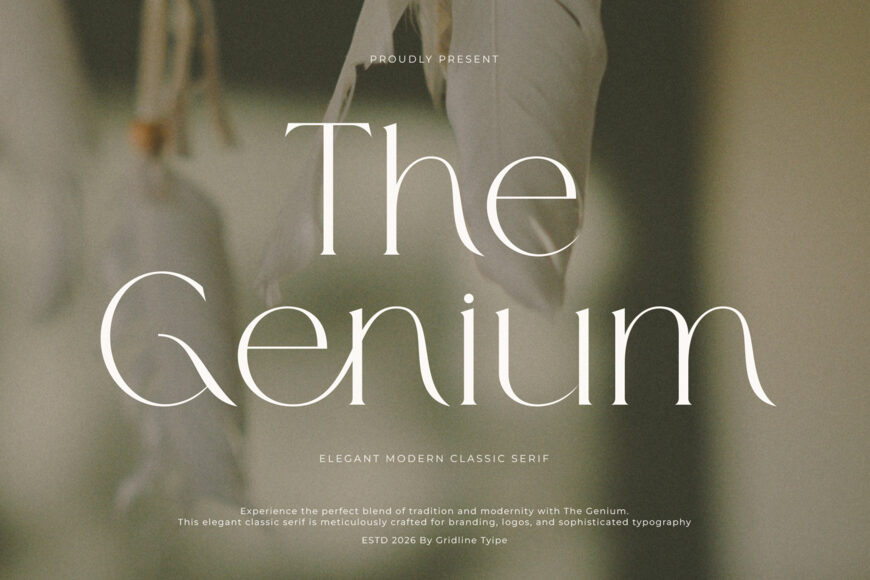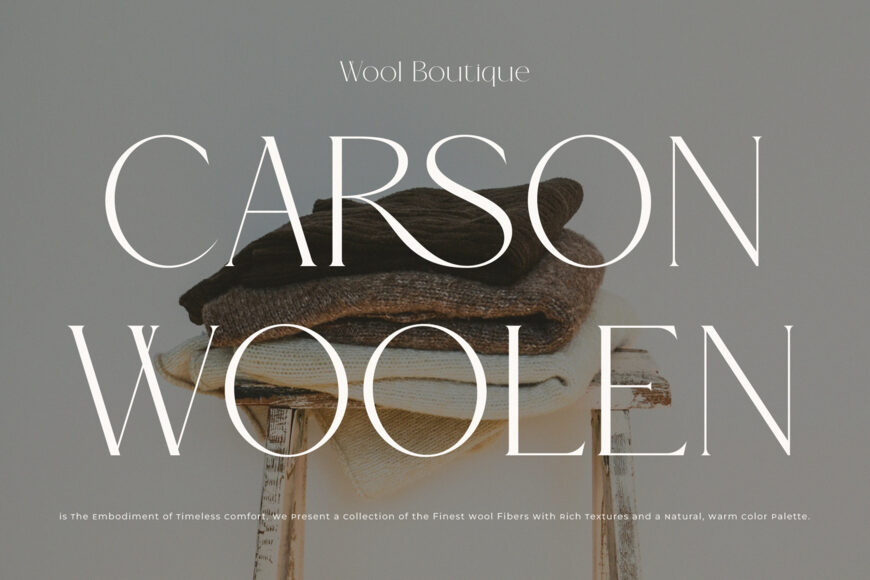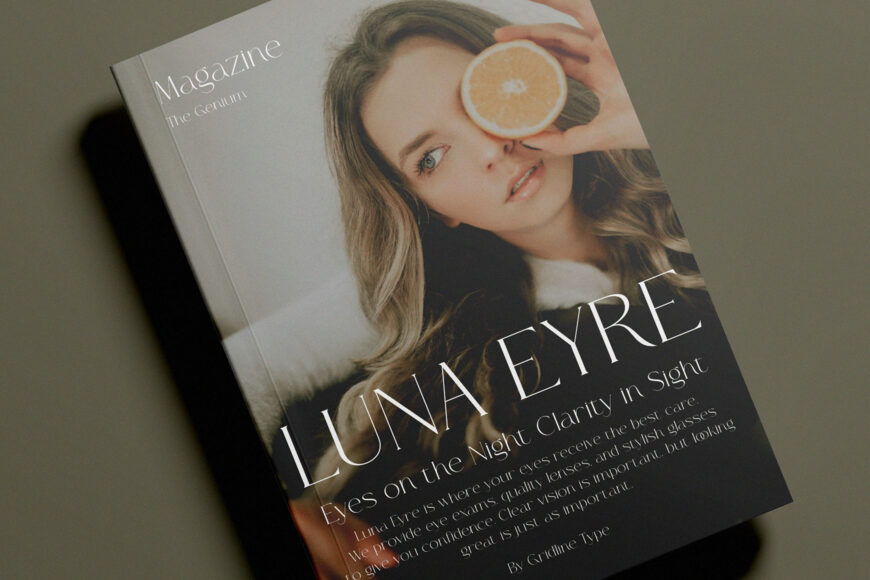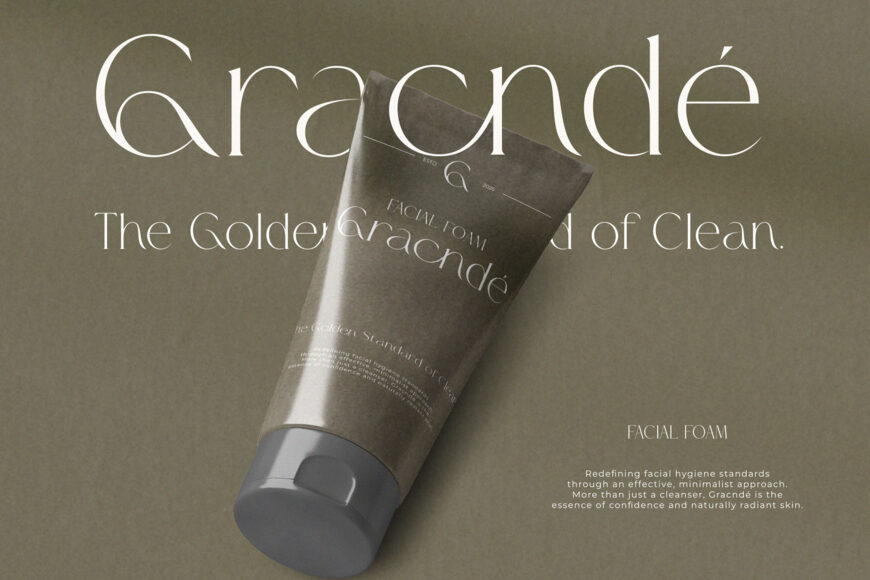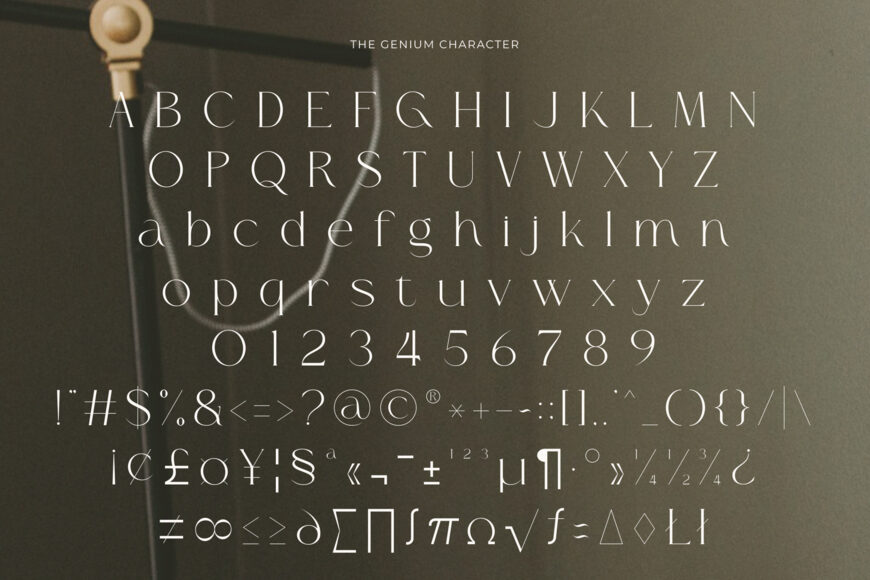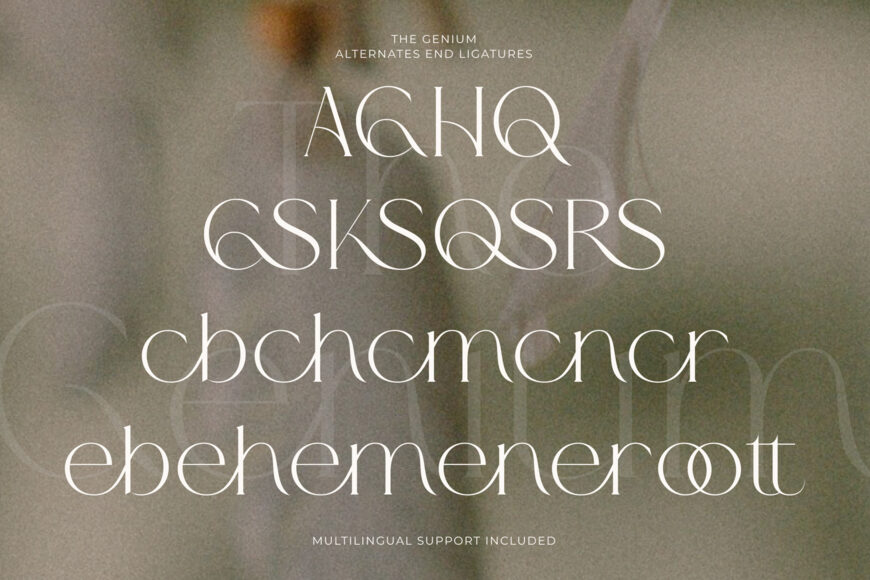
The Genium Font
Elevate your brand’s visual storytelling with The Genium, a high-fashion display serif that captures a “prestigious-and-poetic” soul. This font features stunning, high-contrast letterforms uniquely characterized by rhythmic, sweeping curves and razor-sharp terminals that bridge the gap between archival Roman excellence and modern editorial branding.
With its medium structural weight and intellectual personality, The Genium is the premier choice for independent luxury house identities, boutique jewelry logos, premium skincare packaging, and high-impact “sophisticated-and-seamless” social media headers.